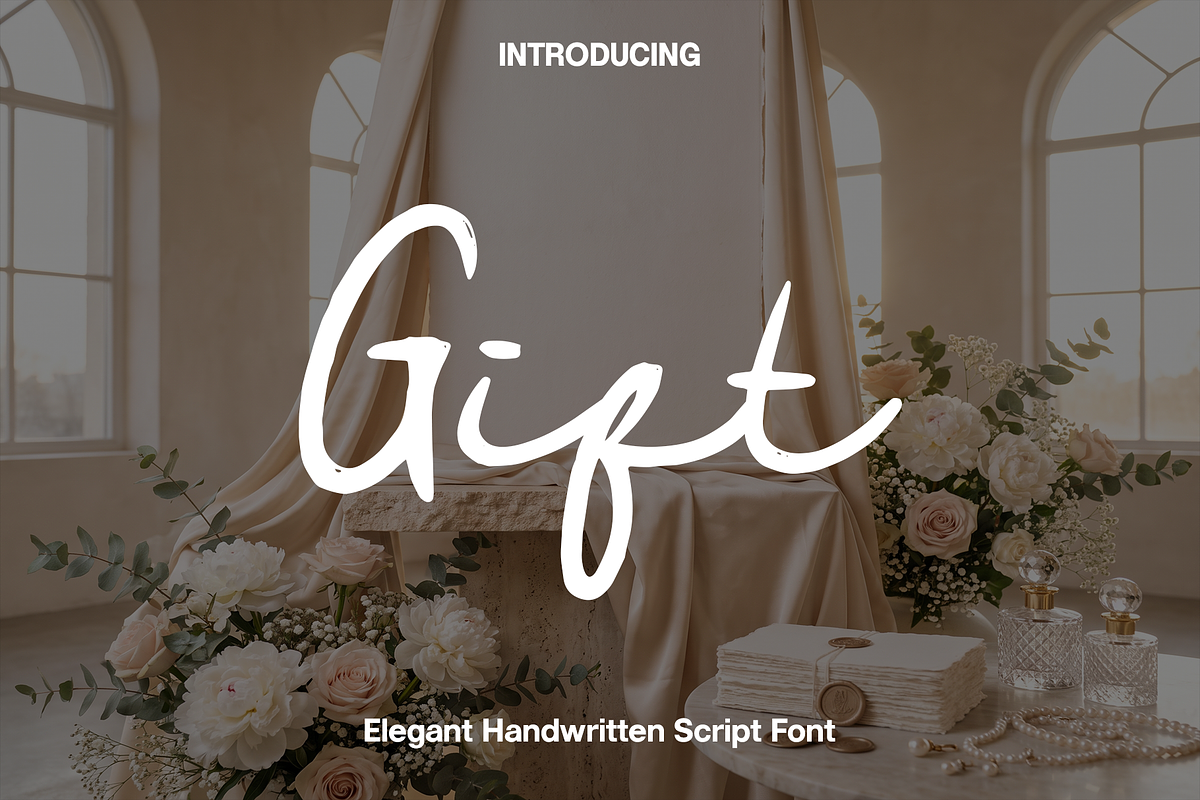
Gift - Elegant Handwritten Script
Gift is a beautifully crafted handwritten script font designed to add warmth, elegance, and a personal touch to every creative project. Inspired by natural handwriting and modern calligraphy, Gift features smooth flowing strokes and graceful letterforms that create an authentic handwritten appearance. Every character is carefully designed to deliver excellent readability while preserving the charm and personality of handwritten lettering, making it ideal for both professional and personal designs.
Perfect for branding, logos, wedding invitations, greeting cards, product packaging, labels, photography watermarks, social media graphics, stationery, advertisements, signature logos, fashion branding, quotes, editorial layouts, and creative marketing materials, Gift brings timeless sophistication to both print and digital media. Its refined handwritten style creates a welcoming and memorable visual identity that enhances every project.
Whether you're designing a boutique brand, creating elegant wedding stationery, developing premium packaging, or producing stylish promotional content, Gift offers the versatility and creative freedom needed to make your typography stand out. Its smooth curves and balanced proportions ensure every word feels natural, expressive, and beautifully handcrafted.
With its elegant handwritten character and premium craftsmanship, Gift transforms ordinary text into meaningful visual expressions filled with personality and style. It is an essential script font for designers looking to create authentic, modern, and sophisticated typography that leaves a lasting impression.